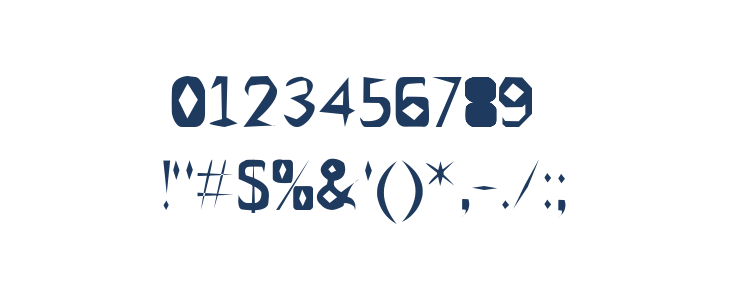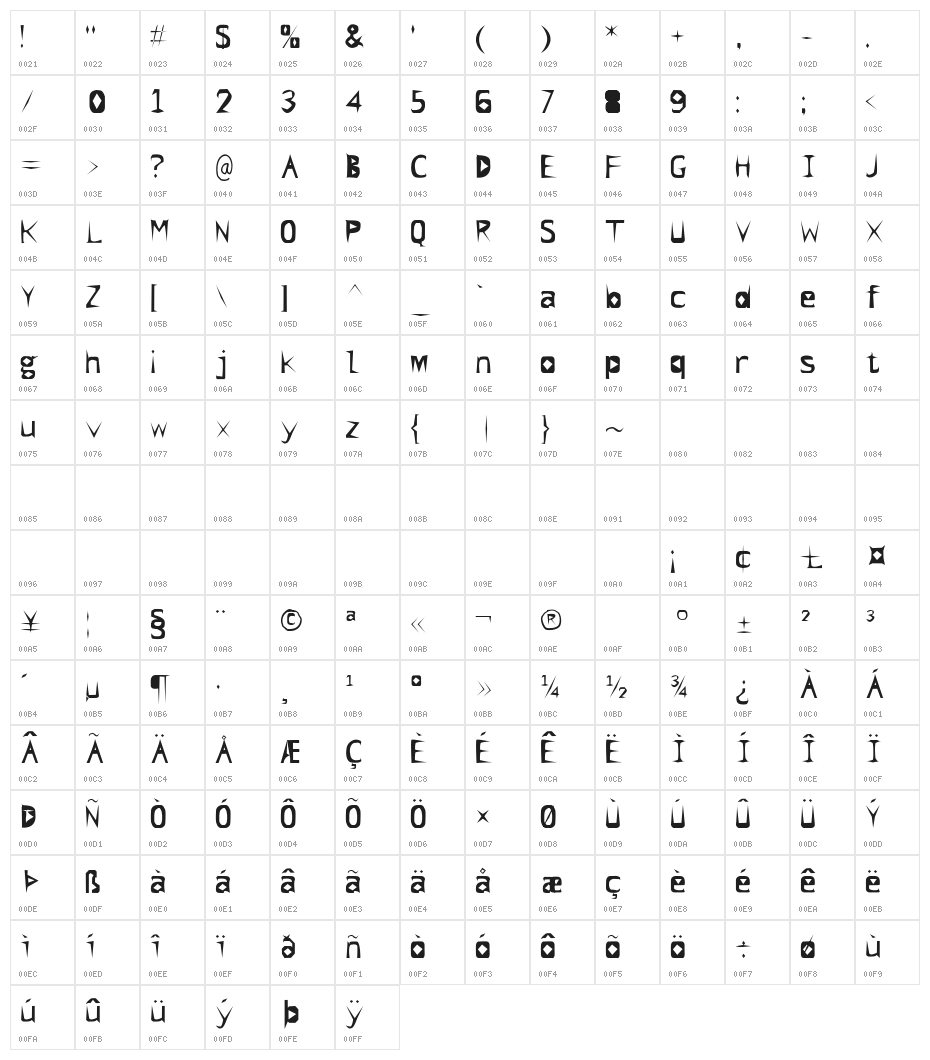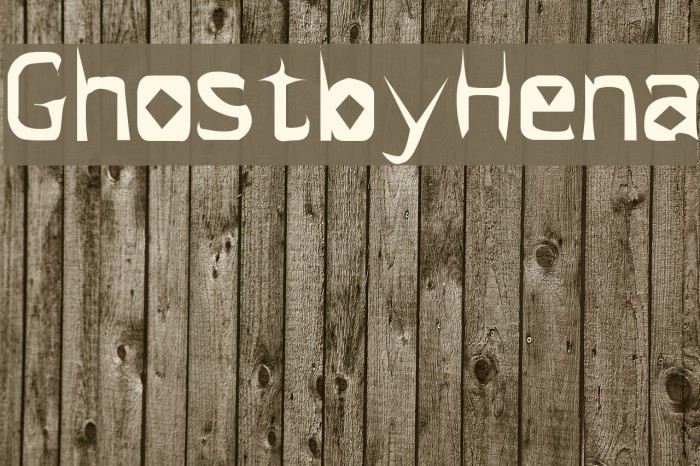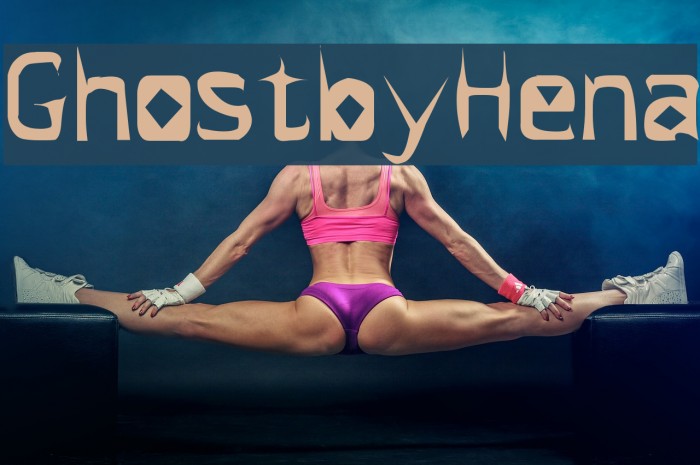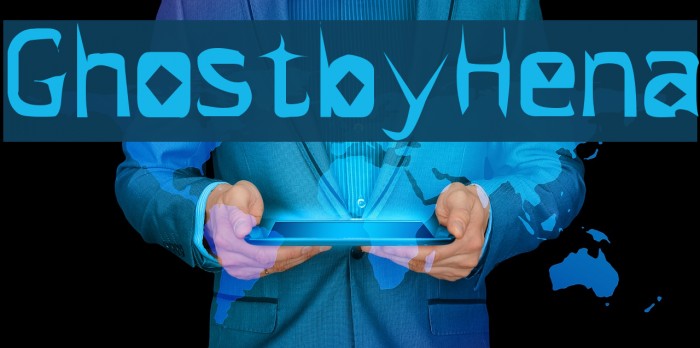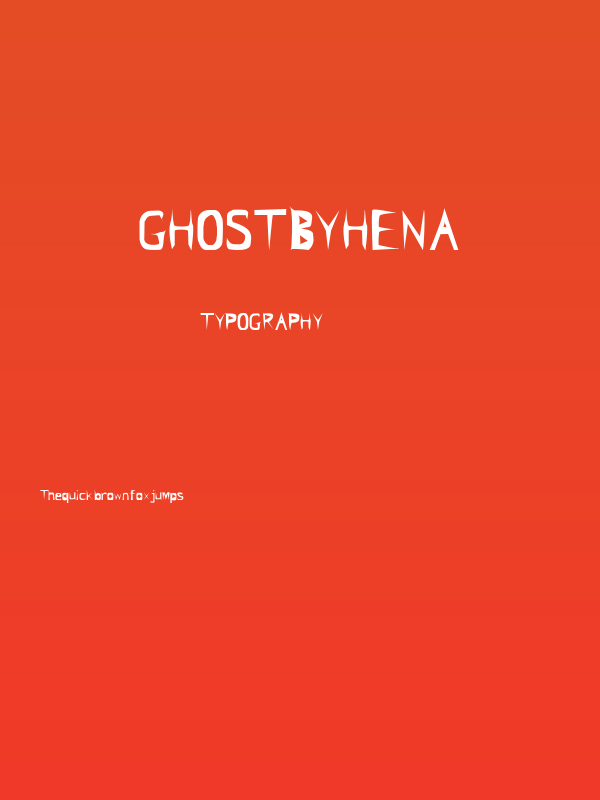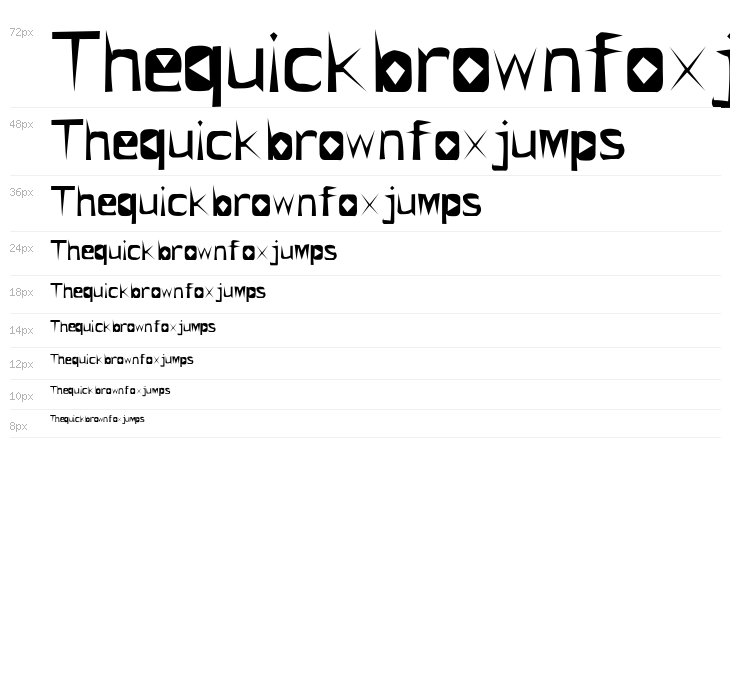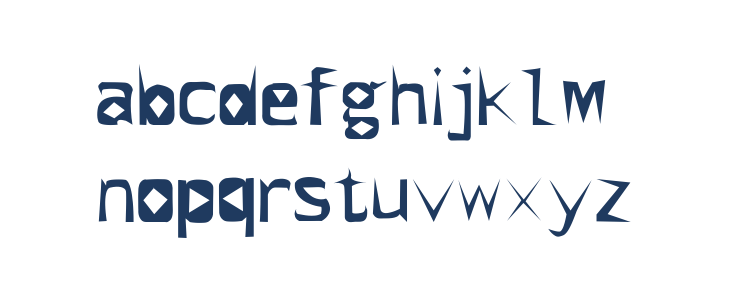
Ghost by Hena Font
Ghost by Hena Description
This font features a unique and edgy design with sharp, angular lines and a slightly distorted appearance. The uppercase letters have a bold presence, while the lowercase letters maintain a consistent style with a touch of playfulness. The numbers are distinct and easily readable, with a quirky twist that matches the overall theme. Special characters are creatively designed, adding to the font's distinctive character. The font's style is reminiscent of a modern, artistic approach, making it suitable for projects that require a bold and unconventional look.
| Proposed Projects | Ideal for Halloween-themed designs, edgy posters, album covers, and creative branding projects. |